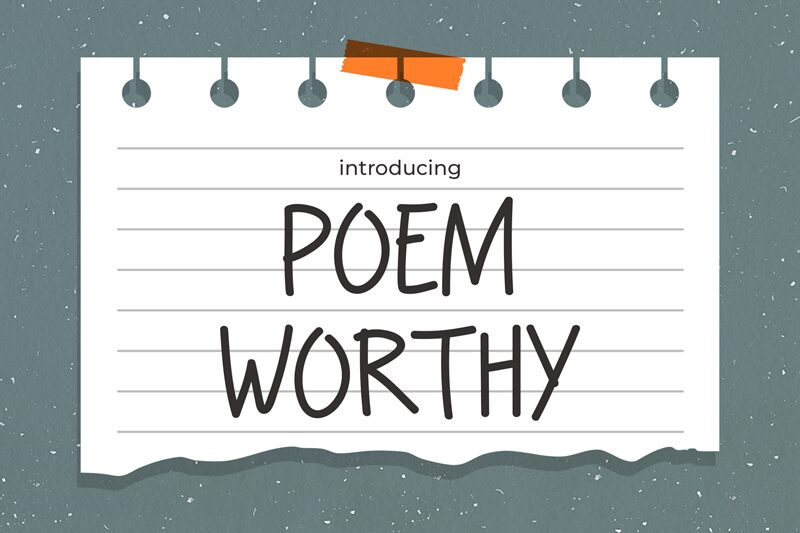
Poem Worthy font by Pinisiart is a wonderful handwritten font which you can download and use for free. An outstanding combination of elegance, smoothness, and clarity, this font is meant to add a beautiful emotional feel to the text whenever used. The letters do not exhibit cursivity, each keeping its charming uniqueness and clean delivery.
Don’t hesitate to use Poem Worthy on the cover, spine, and even the inner pages of books and poems. Other cool options include presentations, banners, greeting cards, quotes, photo captions, and photography. It can be also extended to show placements, product packaging designs, stickers, and more.